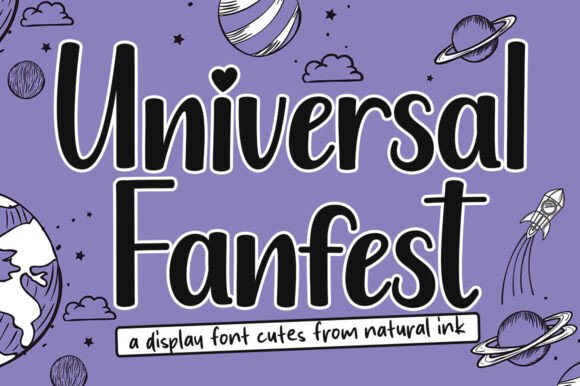
Unleash the Magic of Universal Fanfest Font: Elevate Your Designs with Elegance and Flair
In the realm of typography, few fonts manage to strike a perfect balance between modern sophistication and laid-back charm. The Universal Fanfest Display font is one such marvel, captivating designers and enthusiasts alike with its mesmerizing allure. This splendid fusion of contemporary display and relaxed elegance flaunts striking finesse, adding a vivacious spark to your designs and elevating them into an unmatched sphere of artistic manifestation.
The Birth of Universal Fanfest Font
The Universal Fanfest Font is more than just a typeface; it’s an experience. Born out of a passion for innovative design and a deep understanding of typographic elegance, this font embodies the spirit of creativity and freedom. Its creation is a testament to the power of design in transcending conventional boundaries and exploring new horizons of aesthetic appeal.
Design Characteristics
The Universal Fanfest Display font boasts a unique set of design characteristics that set it apart from other typefaces. Its letters are crafted with precision and care, showcasing a blend of smooth lines, elegant curves, and a hint of playfulness. This font is not just about conveying a message; it’s about making a statement. Whether you’re designing a logo, a website, or marketing materials, the Universal Fanfest Font adds a touch of sophistication and charm that is hard to resist.
Contemporary Display Meets Laid-Back Elegance
What makes the Universal Fanfest Font truly special is its ability to marry contemporary display elements with a laid-back elegance. This fusion results in a typeface that is both modern and approachable, making it incredibly versatile for a wide range of design projects. From trendy fashion brands to lifestyle blogs, and from event posters to digital interfaces, this font adapts seamlessly, lending its unique charm to each context.
Striking Finesse and Visual Charm
The striking finesse of the Universal Fanfest Font is one of its most compelling features. Each letterform is designed to contribute to a cohesive visual narrative that engages and captivates the audience. The font’s visual charm lies in its subtle nuances and attention to detail, making it a joy to use for designers who appreciate the art of typography. With the Universal Fanfest Font, you can add a vivacious spark to your designs, transforming them from ordinary to extraordinary.
Elevate Your Creations
With the Universal Fanfest Display font, elevating your creations to new heights of artistic expression is easier than ever. This font doesn’t just complement your designs; it enhances them, adding a layer of sophistication and allure that captivates audiences. Whether you’re a professional designer or an enthusiast looking to make a mark, the Universal Fanfest Font is your partner in creative expression.
Versatility in Design
One of the key benefits of the Universal Fanfest Font is its versatility. This font can be used across a variety of design projects, from digital media to print materials, without losing its impact. Its adaptability makes it a valuable addition to any designer’s toolkit, offering endless possibilities for creative exploration and experimentation.
Adding Artistic Flair
The Universal Fanfest Font is not just a typeface; it’s a means of adding artistic flair to your designs. Its enchanting allure seamlessly integrates with your creative vision, allowing you to produce works that are not only visually stunning but also deeply engaging. With this font, you’re not just designing; you’re crafting experiences that resonate with your audience.
Why Choose Universal Fanfest Font?
In a world where design plays a crucial role in communication and expression, choosing the right font can make all the difference. The Universal Fanfest Display font stands out for several reasons:
- Unique Aesthetic: Offers a fresh and distinctive look that sets your designs apart.
- Versatility: Suitable for a wide range of projects, from digital interfaces to print materials.
- Elegance and Charm: Adds a touch of sophistication and allure to your designs.
- Legibility: Ensures your message is conveyed clearly and effectively.
These qualities make the Universal Fanfest Font an excellent choice for designers and brands looking to make a lasting impression.
The Universal Fanfest Display font is a splendid fusion of contemporary display and laid-back elegance, offering a unique visual charm that can elevate your designs to new heights. Its striking finesse, versatility, and enchanting allure make it an invaluable asset for anyone looking to add a vivacious spark to their creations. Whether you’re aiming to craft artistic manifestations that stand out or simply looking for a font that combines modern sophistication with approachable charm, the Universal Fanfest Font is an exceptional choice. Dive into the mesmerizing allure of this remarkable typeface and discover the difference it can make in your design journey.